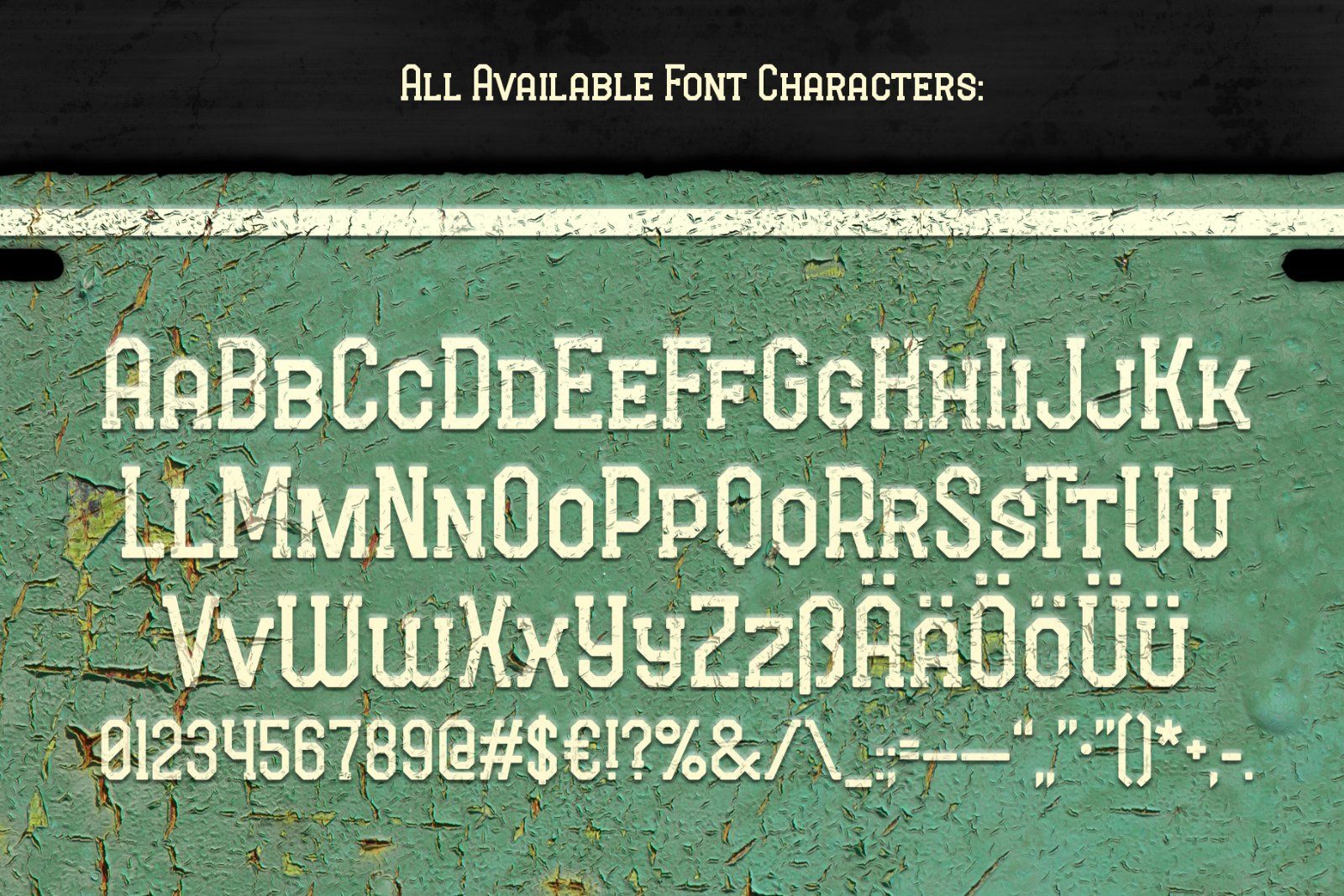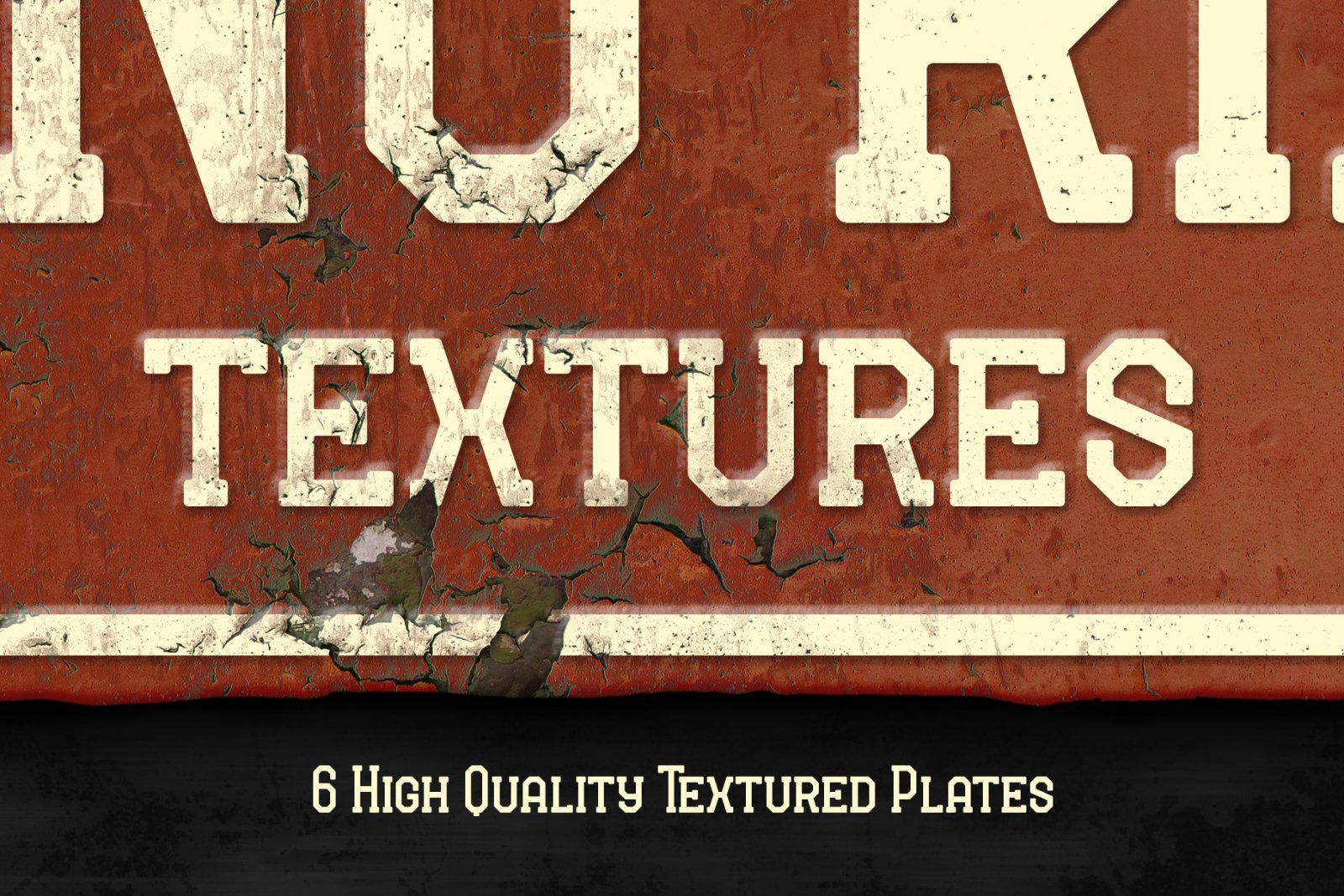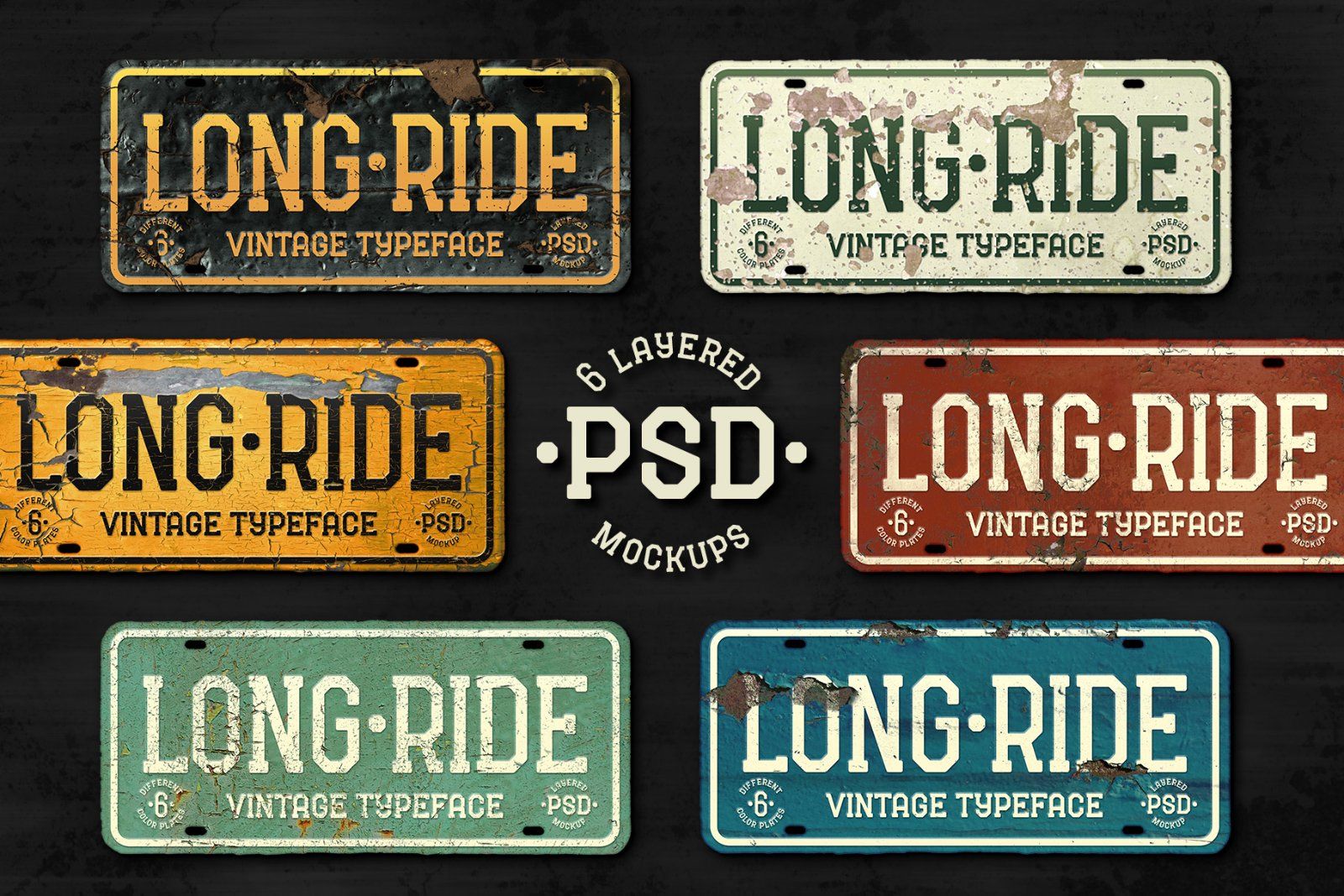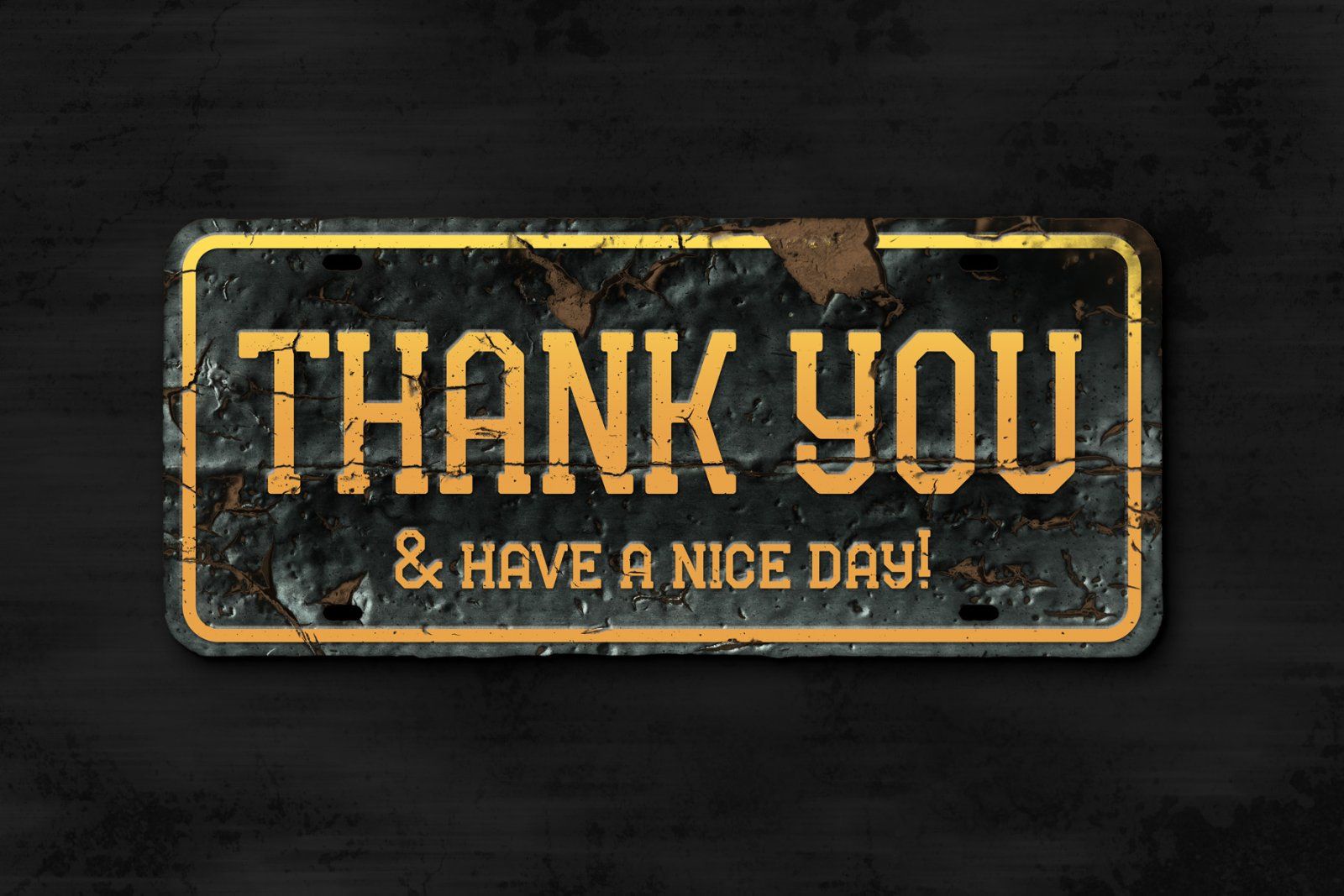
Hi! Introducing a stylized font "Long Ride". It's a simple minimalistic font with great bonus - 6 vintage aged license car plates. Each plate has a different color and texture with editable text layer. All cracks and bevel effect is applied to text in PSD mockups.